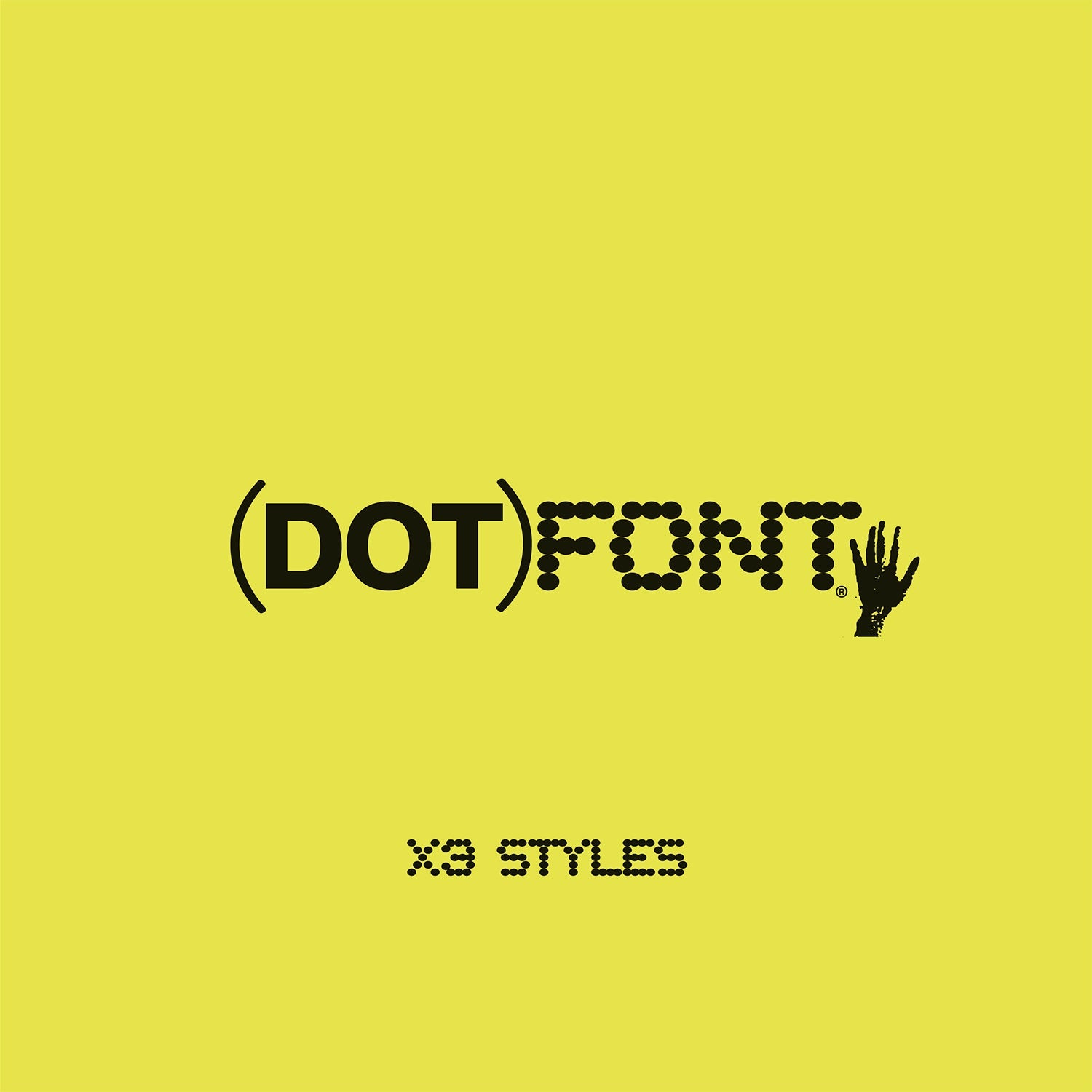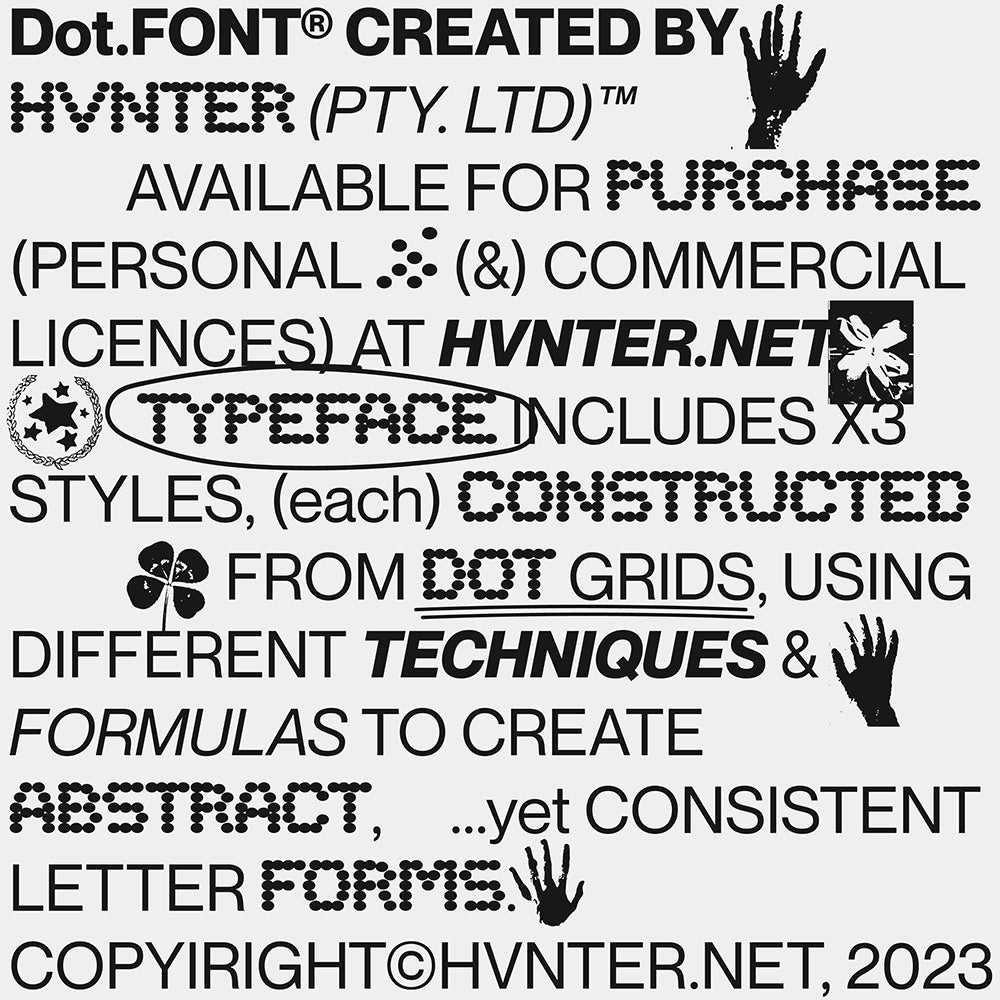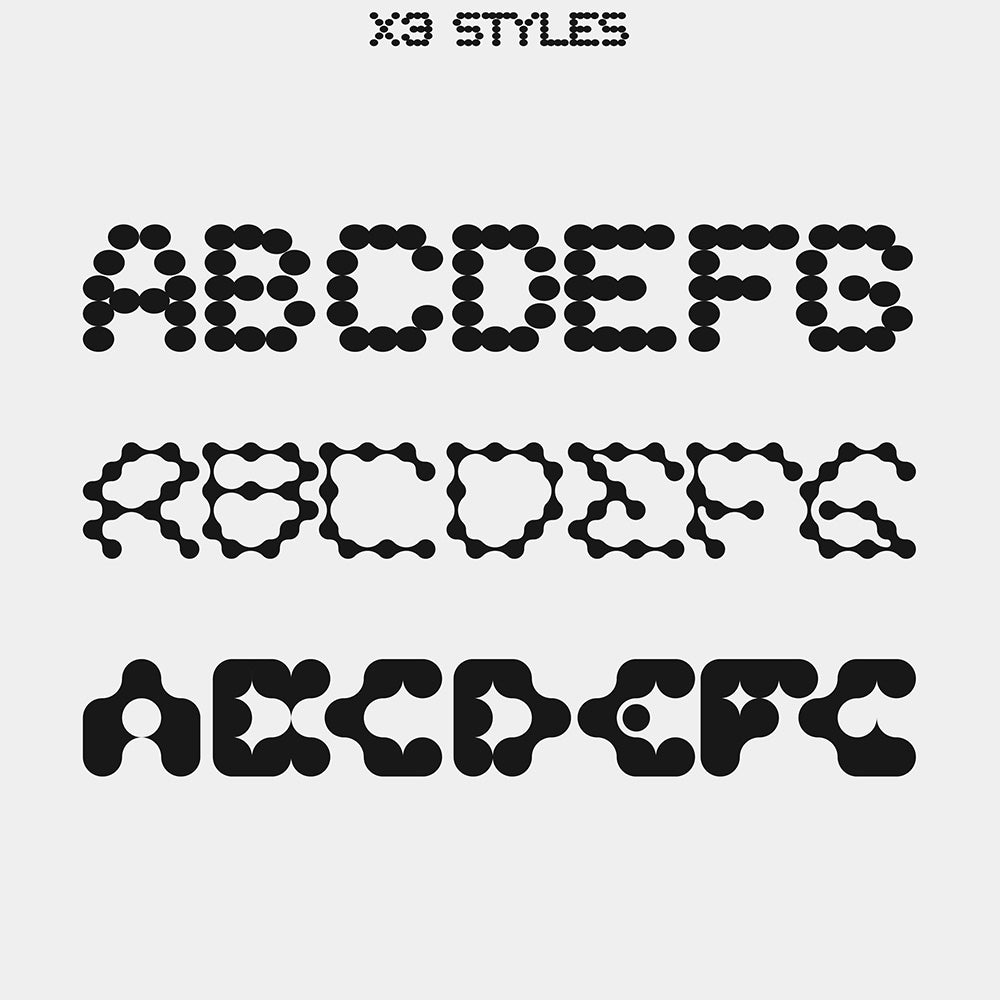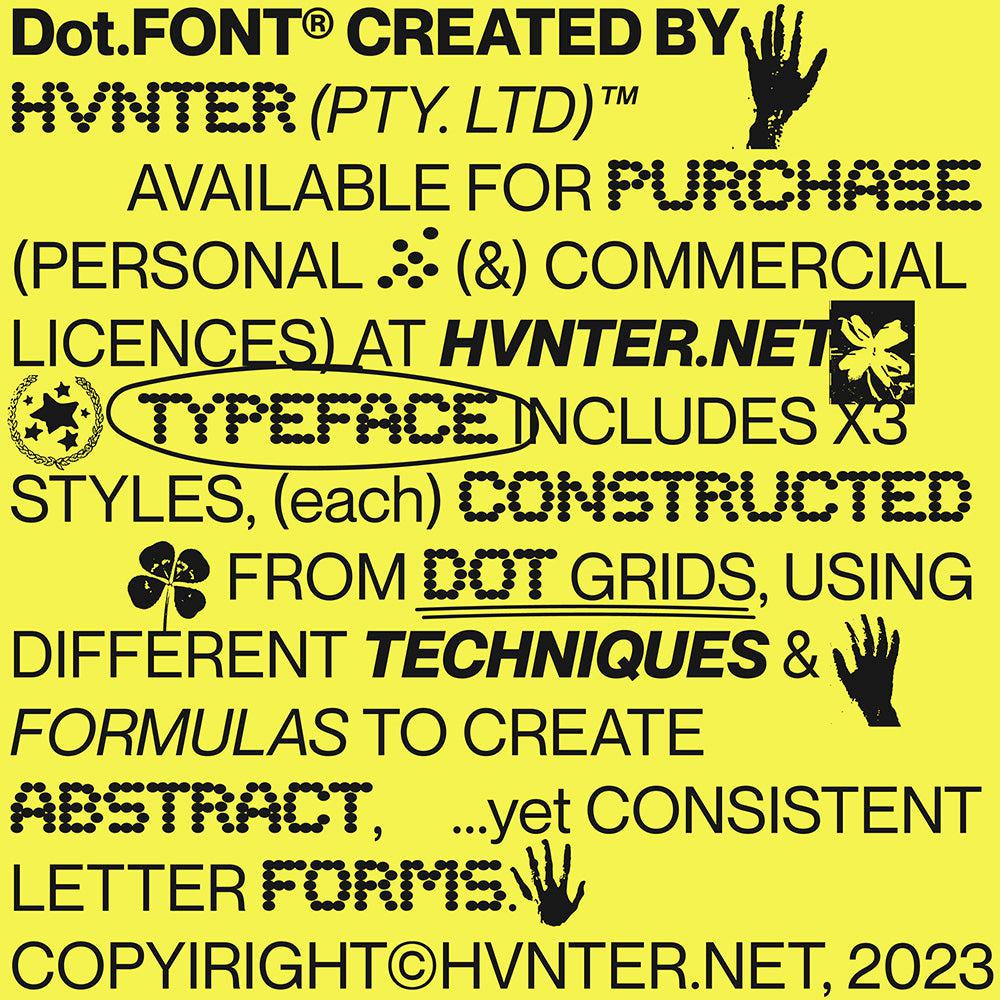
Dot.Font
Dot.Font is a typeface bundle that includes three distinct font styles, all designed using dot grids. Each style comes with a complete set of characters from A-Z, digits 0-9, and basic symbols, provided in an .otf font file.
Ideal for contemporary streetwear branding and urban-inspired graphic design. Perfect for posters, apparel graphics, and social media content, ensuring a unique and eye-catching aesthetic that resonates with modern audiences.